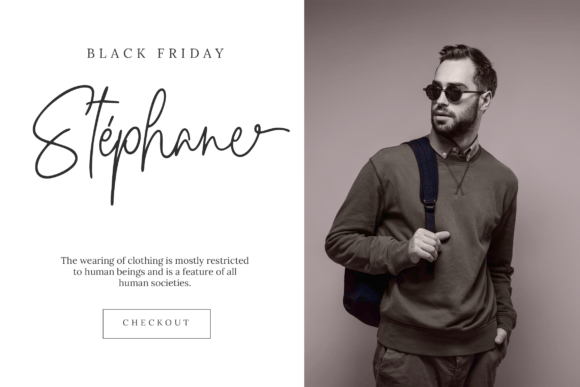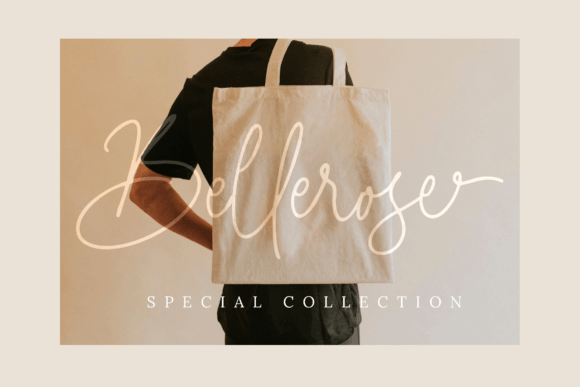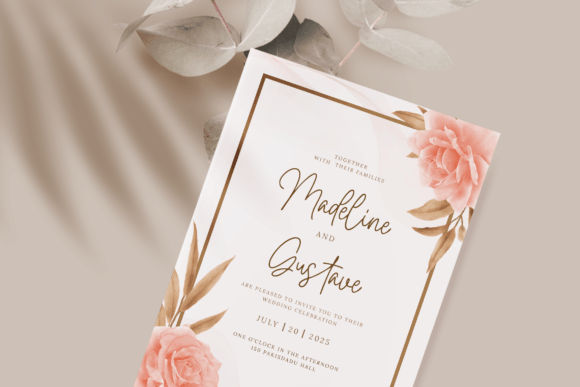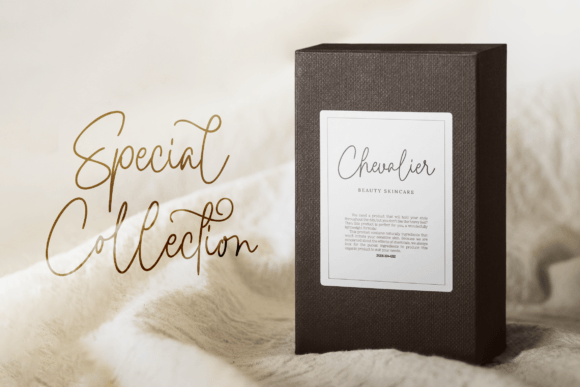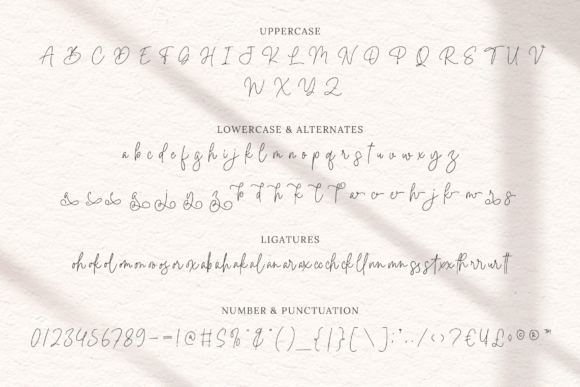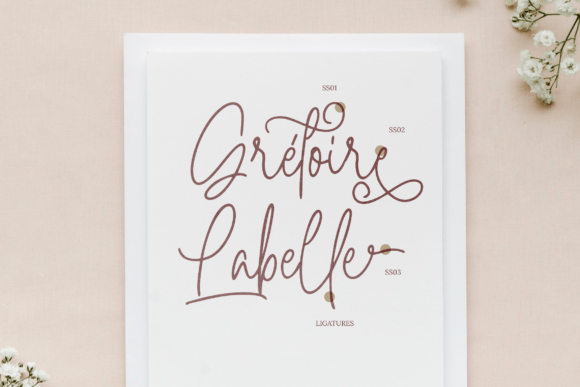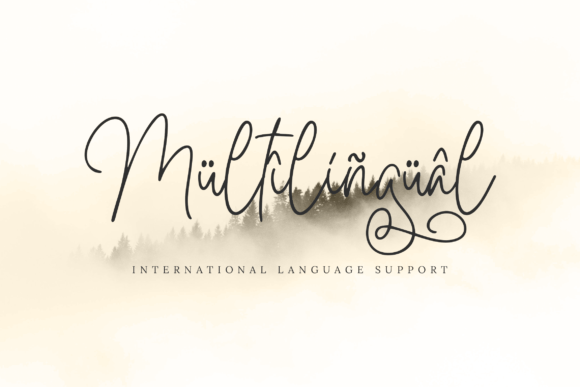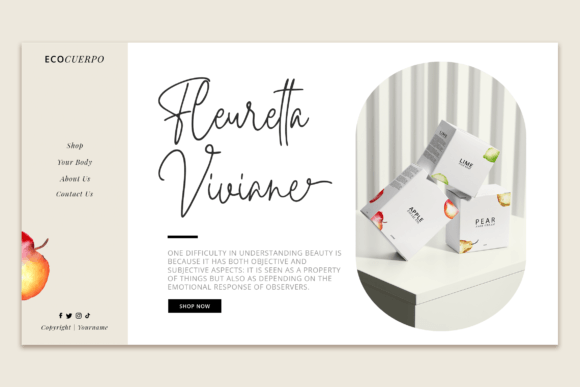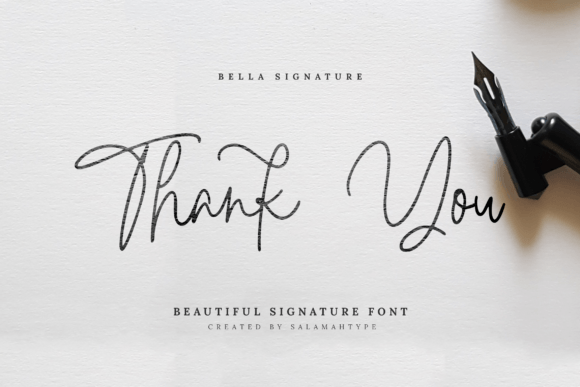
Bella Signature Font
About Bella Signature Font
The Bella Signature font is a sophisticated handwritten script that exudes both charm and elegance. Created for projects that need a delicate personal touch, this font offers a graceful look while remaining clear and refined. Whether you’re crafting a romantic wedding invitation or designing a polished brand logo, Bella Signature delivers both beauty and balance.
Designed for Elegance and Emotion
Every letter in Bella Signature is thoughtfully designed to mimic the natural flow of handwriting. The strokes are fluid and graceful, evoking the feeling of handwritten notes or calligraphy by hand. The font maintains consistency and rhythm, ensuring legibility while expressing emotion.
It’s ideal for designs that aim to connect on a personal level. The curves and loops feel soft and elegant, adding warmth to any message without compromising clarity.
Ideal for Wedding and Event Designs
The Bella Signature font is especially well-suited for formal and romantic designs. Use it for:
• Wedding invitations and save-the-dates
• Thank you cards and personal notes
• Greeting cards and event announcements
• Elegant logos and feminine branding
• Quotes, wall art, and stylish stationery
Its handwritten character makes it feel human and heartfelt. The charm it brings enhances any message and adds a sophisticated tone.
Add a Handwritten Touch That Stands Out
If you want your project to feel heartfelt, refined, and memorable, the Bella Signature font is a perfect choice. It adds a layer of sophistication and softness that’s ideal for weddings, luxury branding, and heartfelt messages.